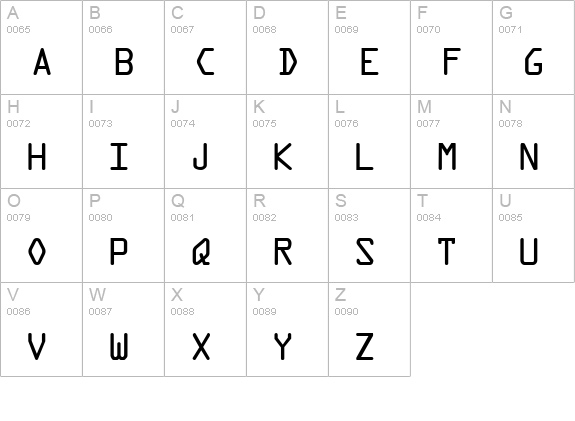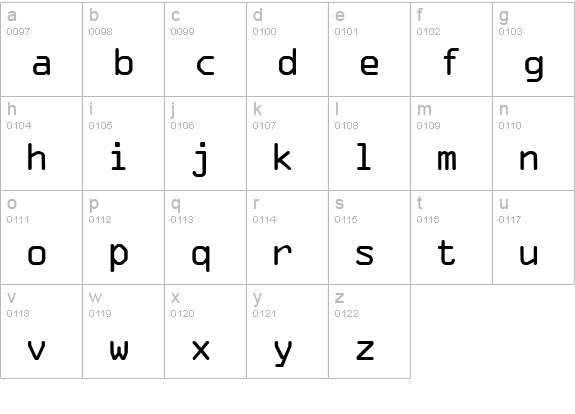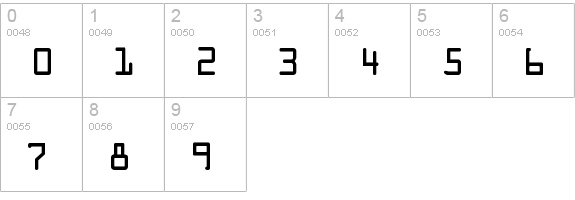
STALKER1 Font Details
Introducing STALKER1, a captivating and versatile font that will leave you spellbound with its unique and edgy aesthetic. This extraordinary typeface effortlessly combines the perfect balance between modernity and classic elegance, making it an ideal choice for any creative project. STALKER1 boasts a wide range of intricate and meticulously crafted characters, each one exuding an air of mystery and intrigue. Its sharp and angular design captures the essence of a futuristic dystopia, making it perfect for sci-fi themed designs, gaming logos, movie titles, and much more. Whether you're a graphic designer, a filmmaker, or a branding enthusiast, STALKER1 will undoubtedly add a touch of sophistication to your work. But what sets STALKER1 apart from other fonts in the market is the fact that it is not only stunningly beautiful but also freely available to download. That's right, you can now enhance your creative endeavors without spending a dime. Simply head over to FontsMarket.com and experience the thrill of getting your hands on this extraordinary typeface without any cost. With its wide range of stylistic alternates, ligatures, and multilingual support, STALKER1 offers endless possibilities to bring your imagination to life. Whether you're working on a website design, a poster, or a book cover, this font will effortlessly elevate your creations to new heights. So why wait? Don't miss out on the opportunity to add this captivating font to your collection. Visit FontsMarket.com today and download STALKER1 for free. Unleash your creativity and let STALKER1 become your ultimate companion in the world of design.